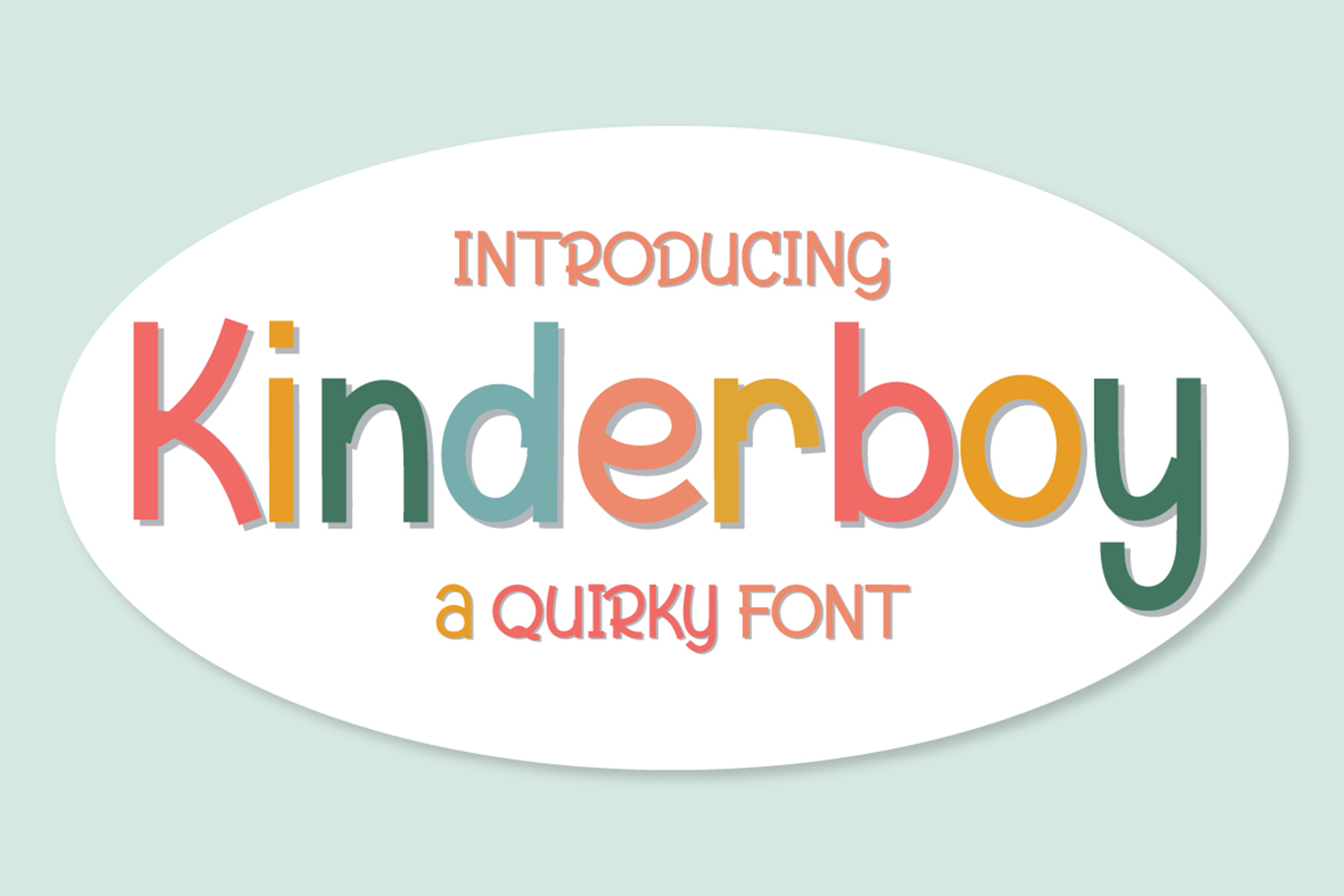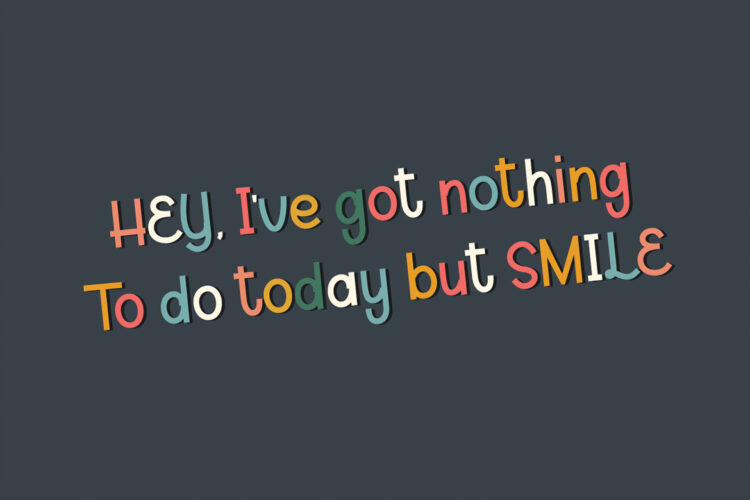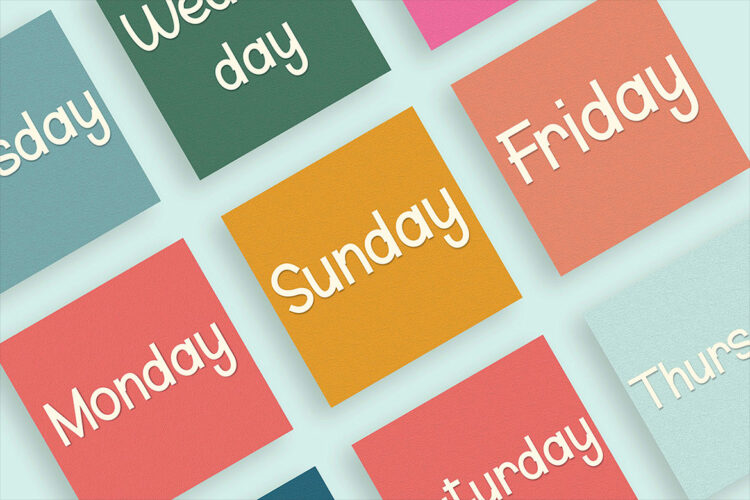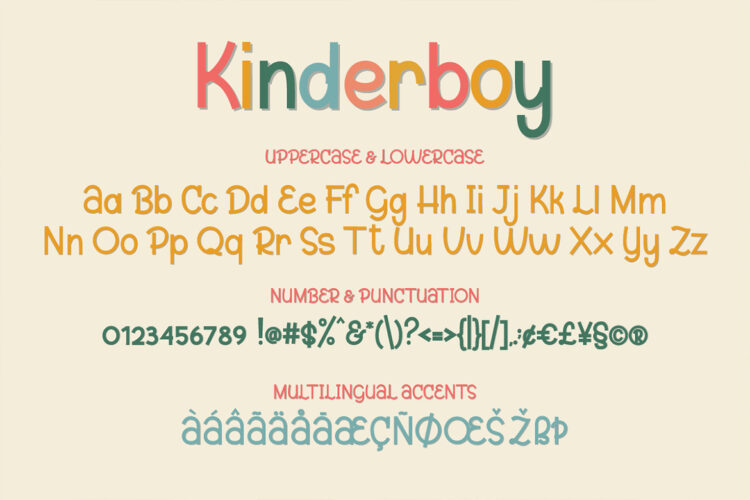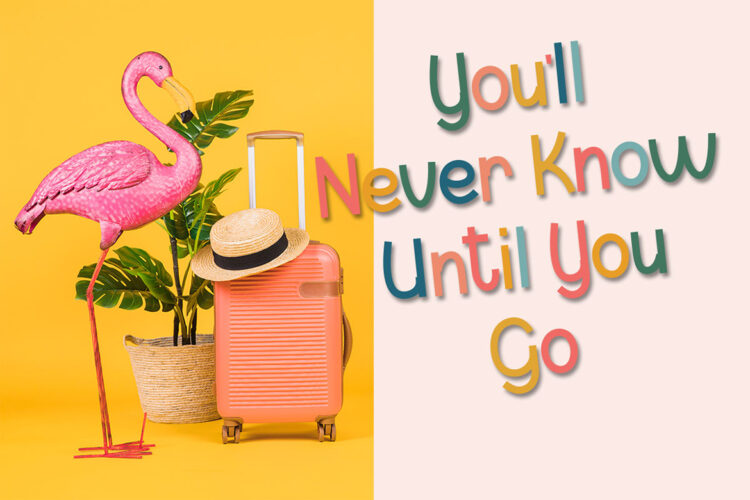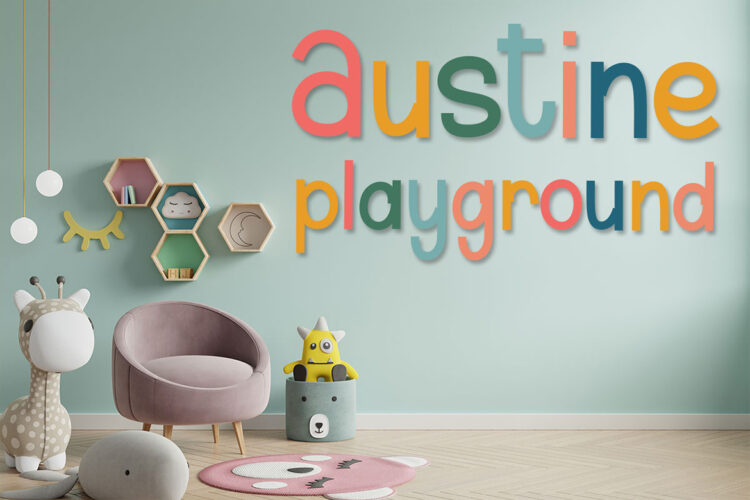
Introducing of our new product the name is Kinderboy | Quirky Font. Very good for kids theme, Crafted, logotype, label, badge, headline, packaging and any more.
Kinderboy | Quirky Font